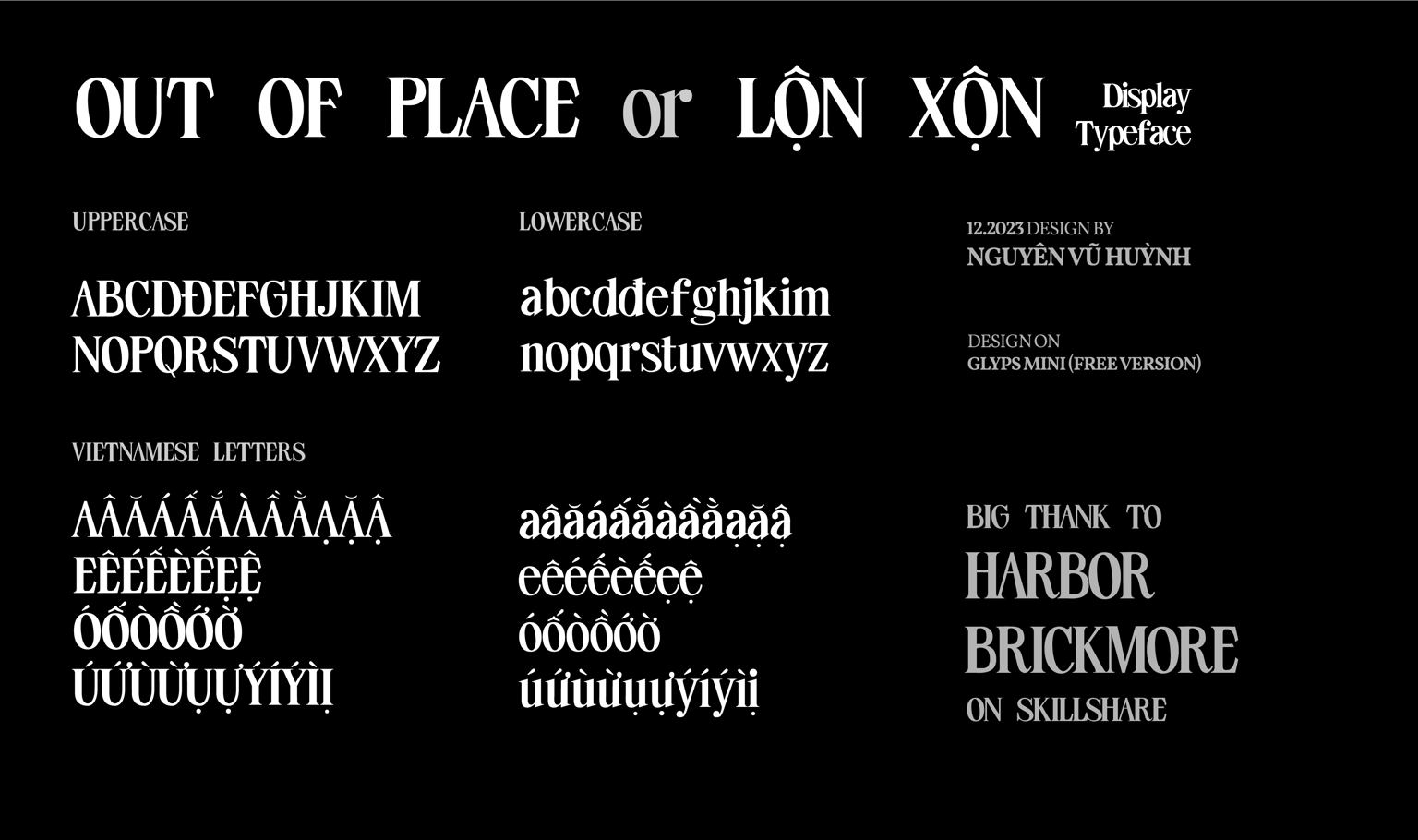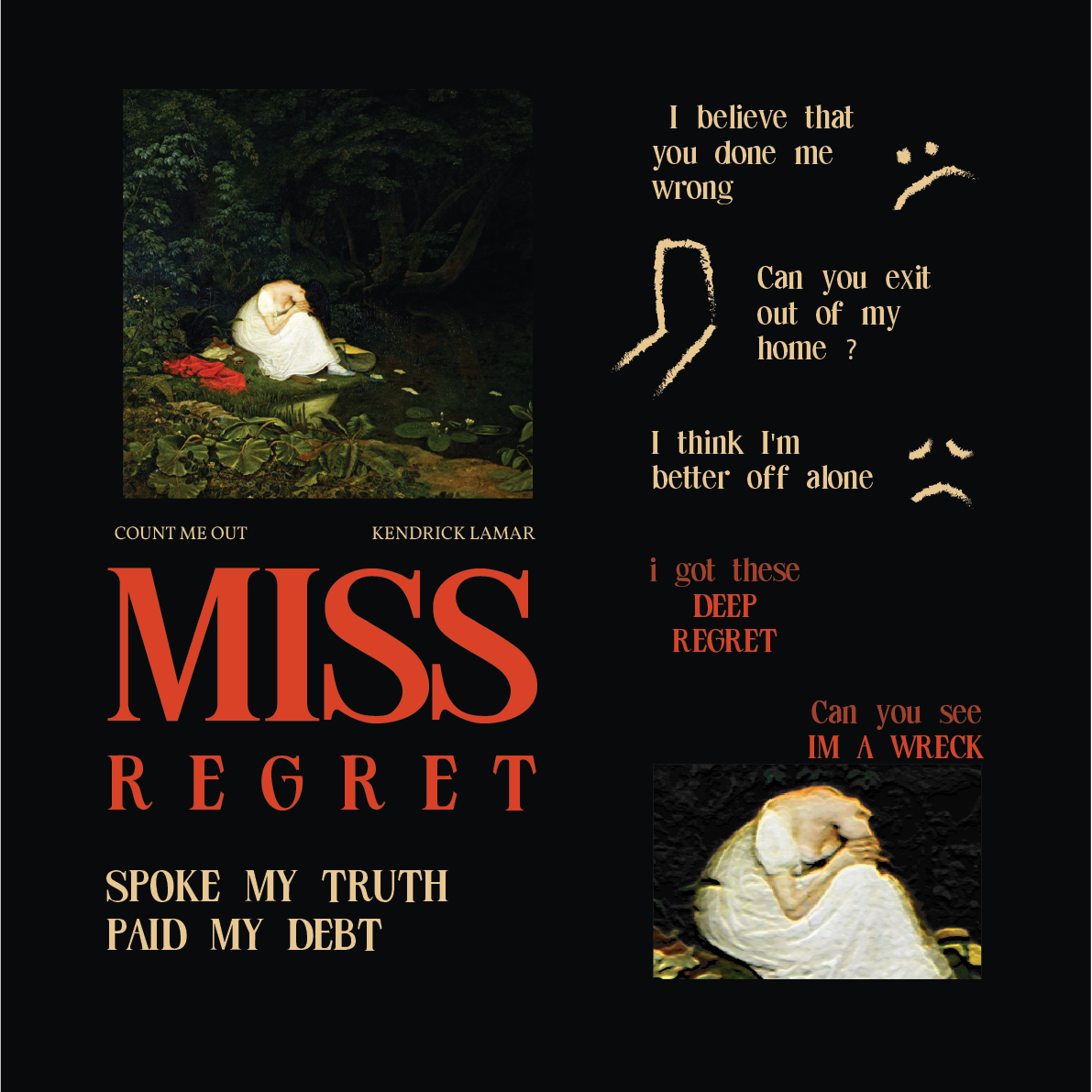
OUTOFPLACE Typeface
So THE BIG IDEA or what i want is my type to feel a bit out of order, a little randomness.
That where the name come from Out of Place or Lộn Xộn In Vietnamese.
I don't have any quotes, so i choose my fav part from my fav song for this Presentation